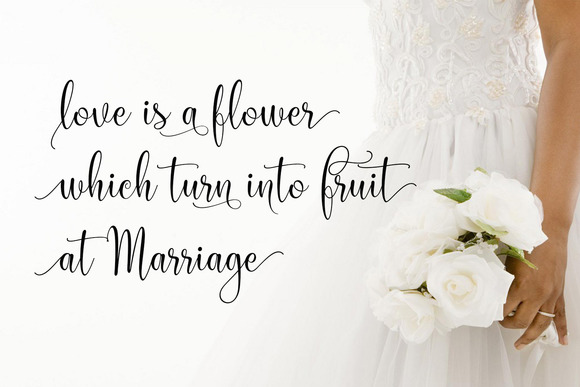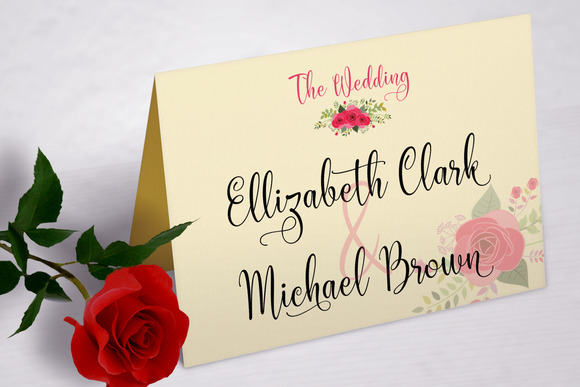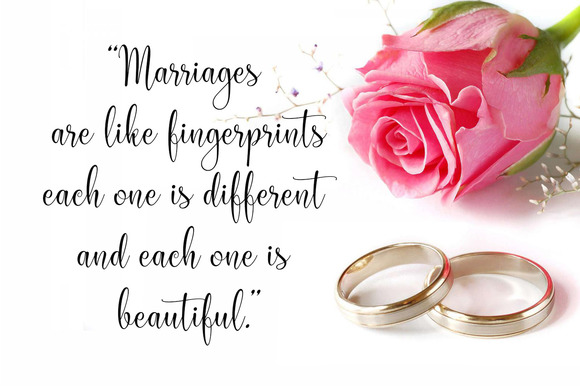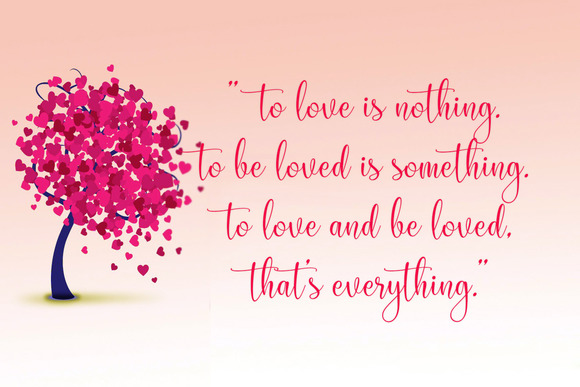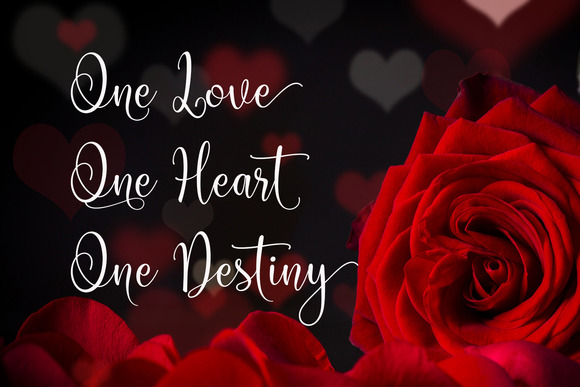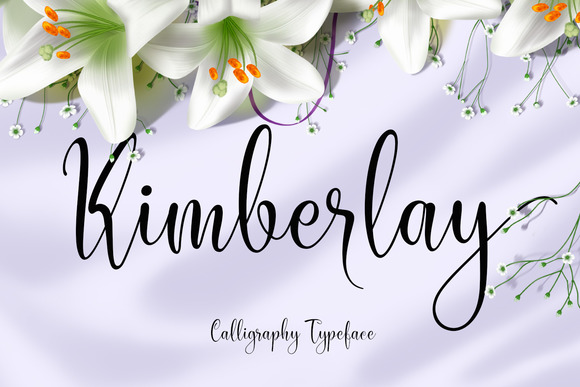
Kimberlay Script Font
The fine and smooth lines give the font a very classy look and feel. The font is clear to read and contains many extra characters. This makes it suitable for many purposes and because it contains so many extra’s you can use it over and over again without getting bored. Every design you make will be completely unique.